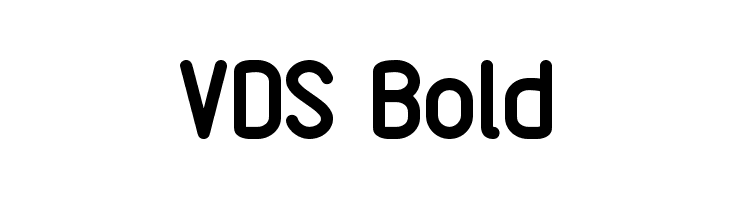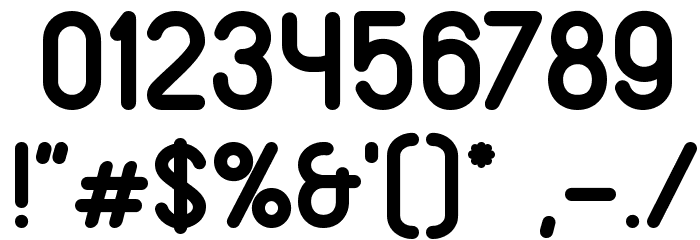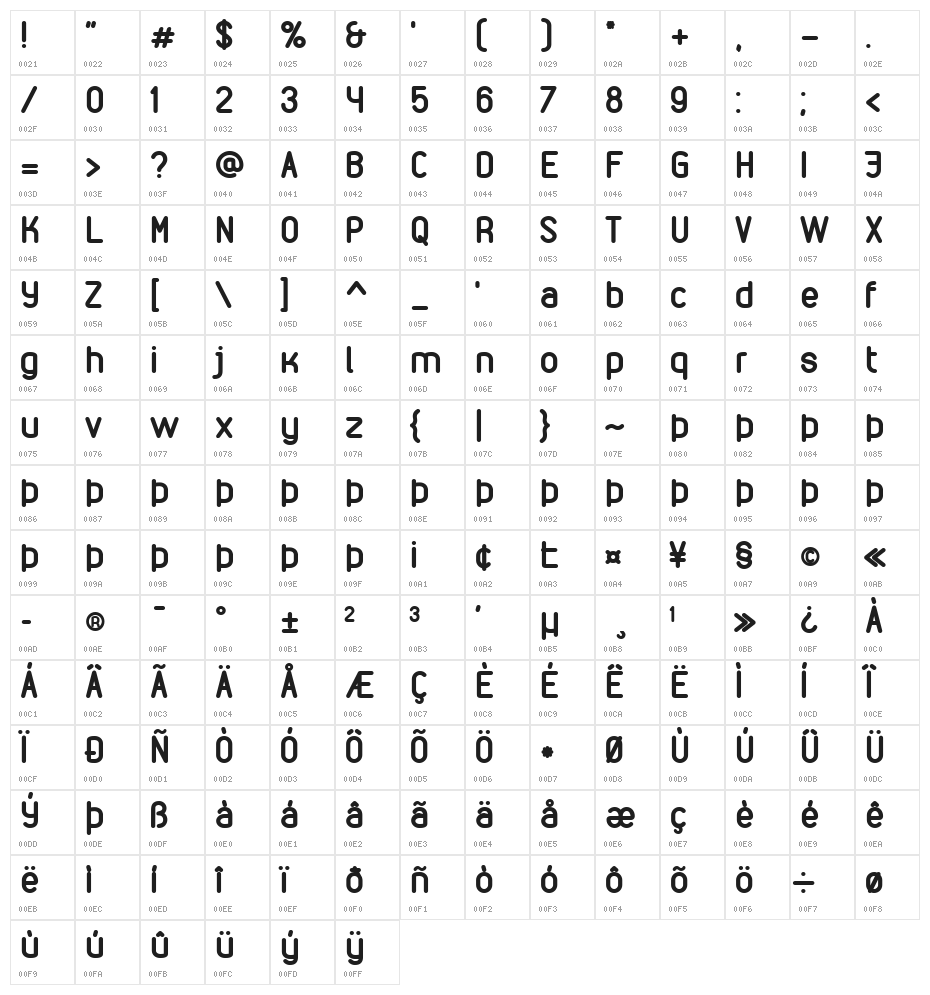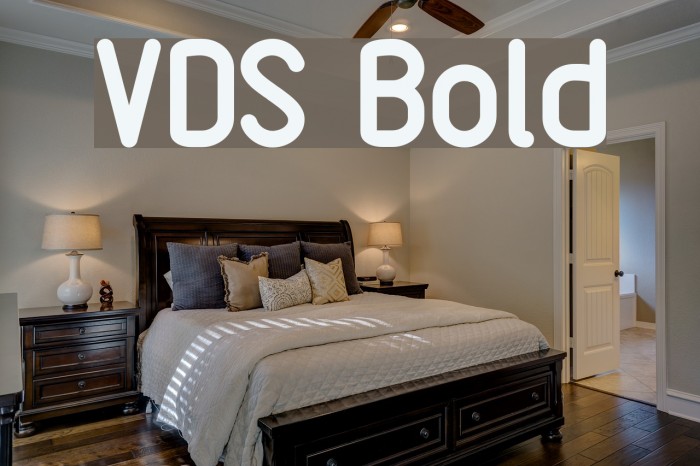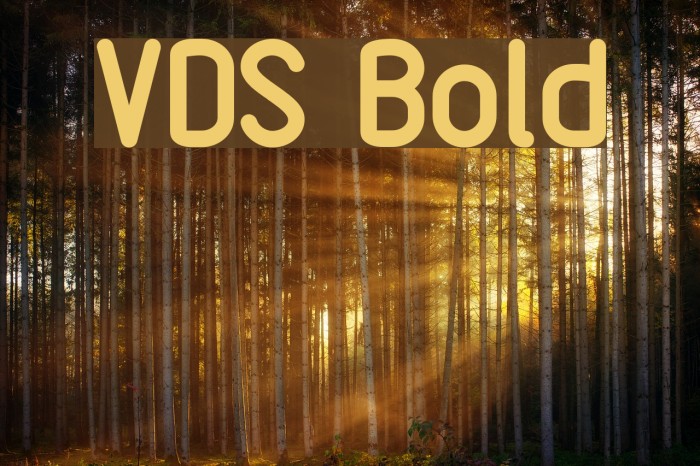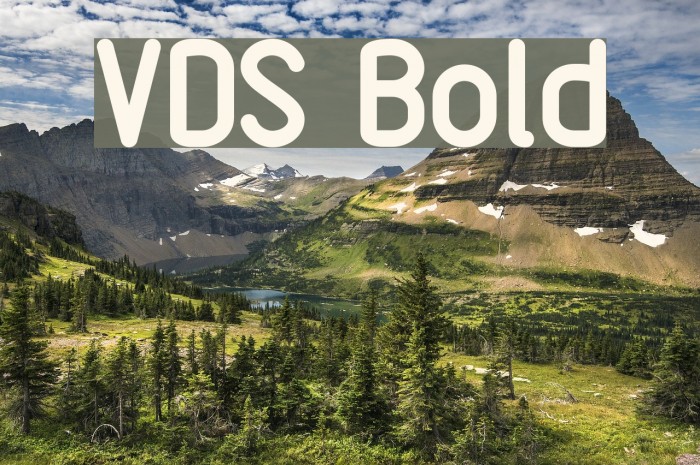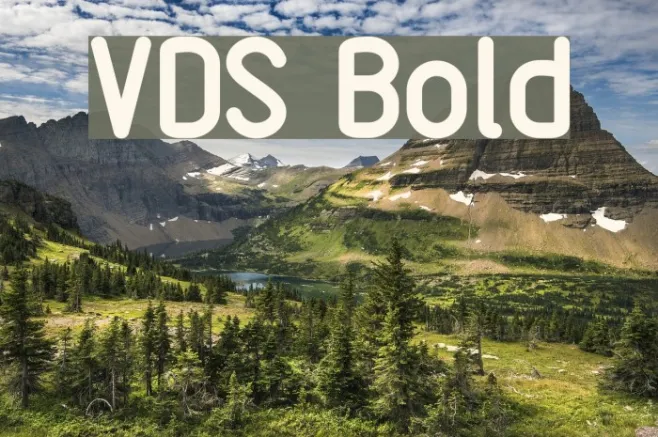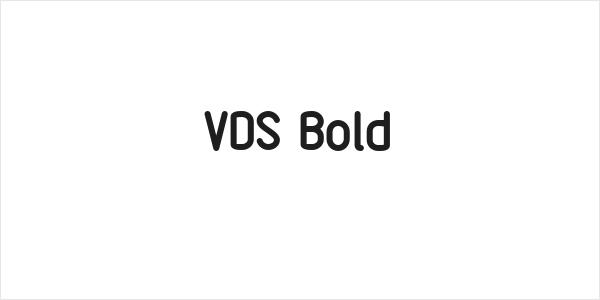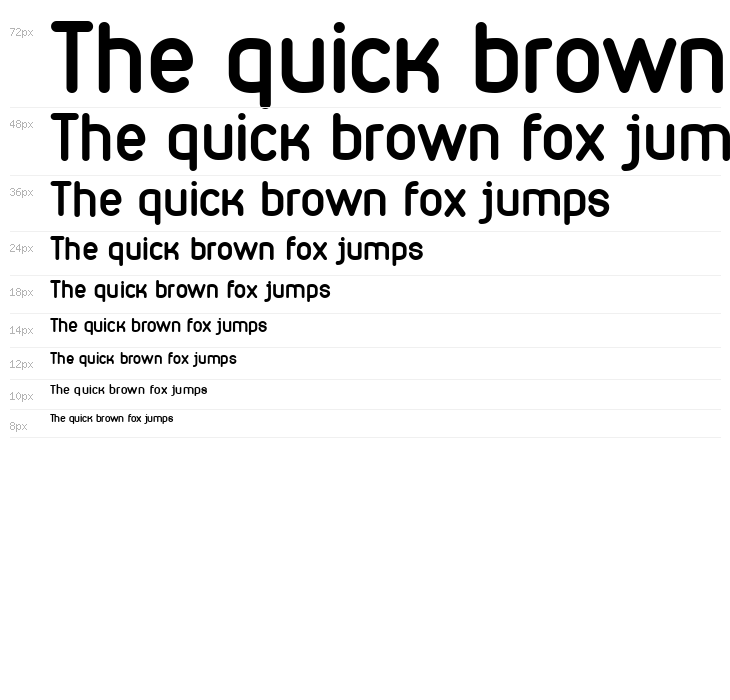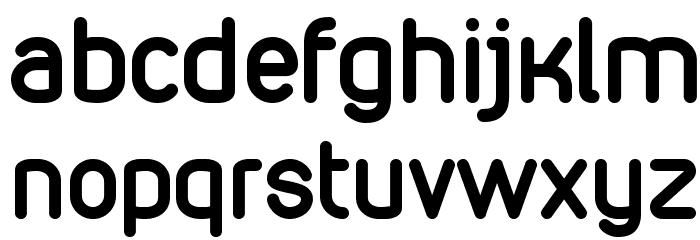
VDS Bold Font
VDS Bold Description
This font features a bold, rounded sans-serif style with a modern and clean appearance. The characters are evenly weighted, providing a uniform and cohesive look. The rounded edges give it a friendly and approachable feel, making it suitable for a variety of design applications. The numerals and special characters maintain the same rounded and bold characteristics, ensuring consistency across all text elements. This font's design is versatile, allowing it to be used effectively in both digital and print media.